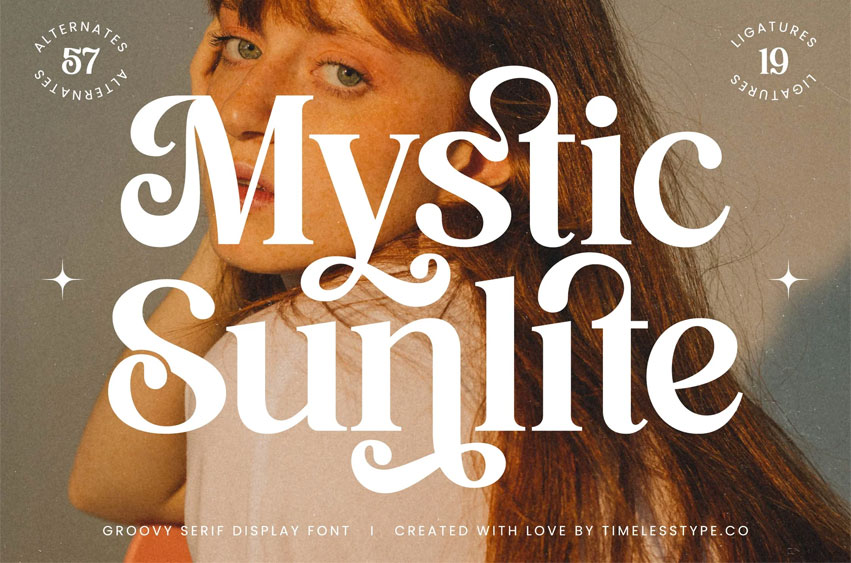
Mystic Sunlite Font
Mystic Sunlite Font is a groovy serif display font that blends elegant curves with playful vintage styling. Designed to bring warmth and personality into every design, its smooth swashes, expressive letterforms, and subtle retro charm make it perfect for editorial titles, branding, posters, album covers, social media visuals, beauty packaging, and creative logo projects.
Featuring 19 ligatures and 57 stylistic alternates, Mystic Sunlite offers endless combinations to craft unique typography with effortless refinement. Whether you’re building bold headlines or dreamy aesthetic visuals, this font delivers a magical balance of sophistication and artistic flair.